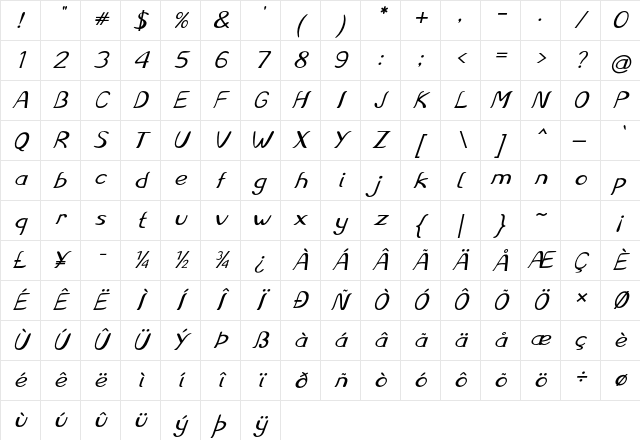
Windfall Bold Italic
Design Context for Windfall
Windfall is a composed and adaptable typeface that performs quietly and consistently across a wide range of design contexts. The slanted form adds forward momentum and visual energy. Its bold stroke weight gives it real presence on the page.
Pro Tip: Use Windfall for emphasis, pull quotes, and subheadings where its slanted energy can add rhythm to the layout.